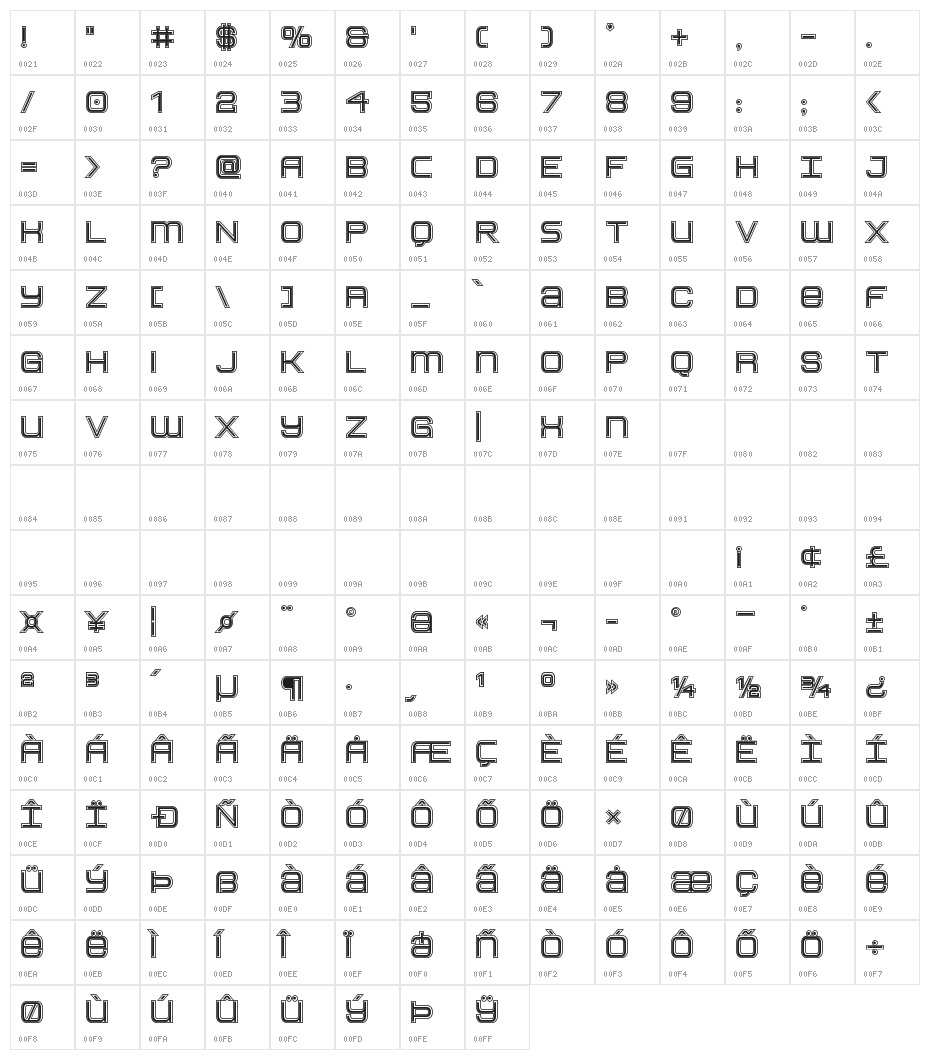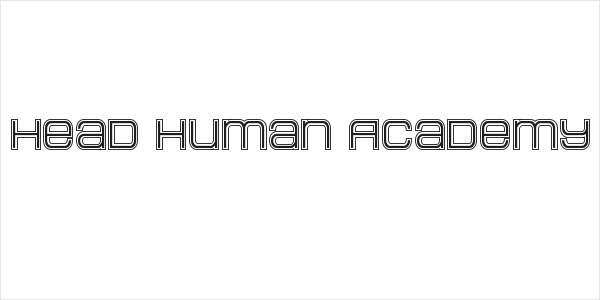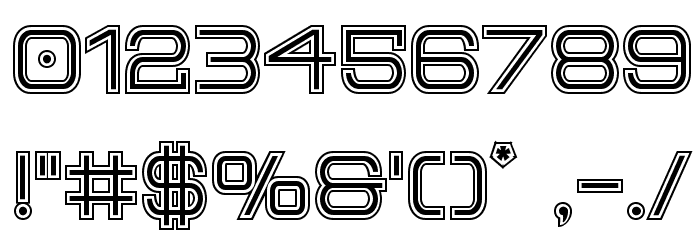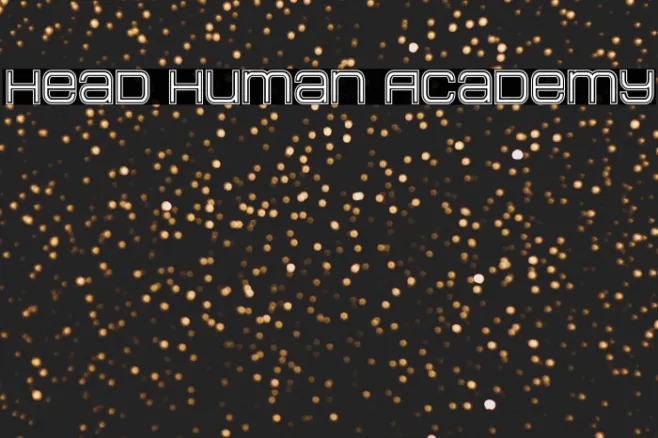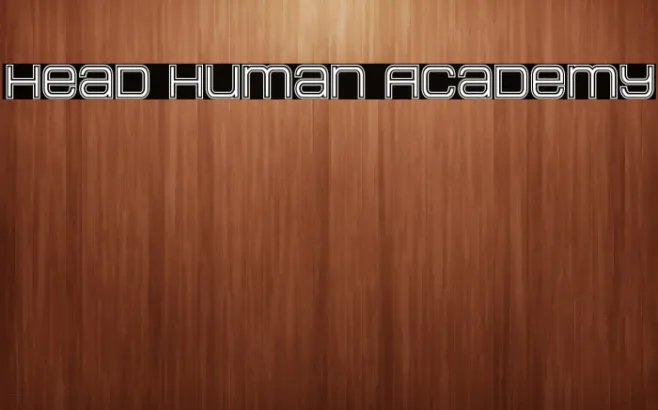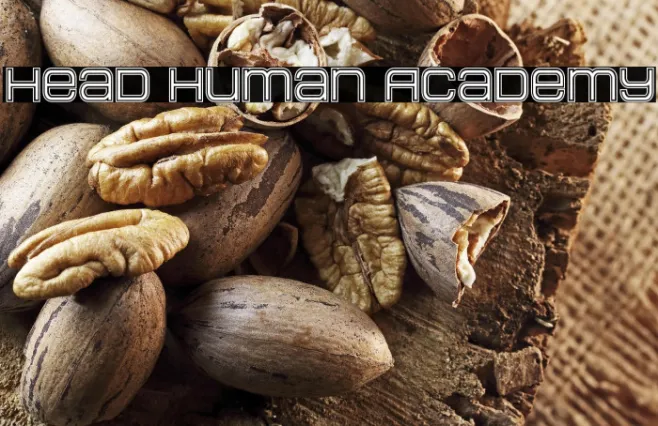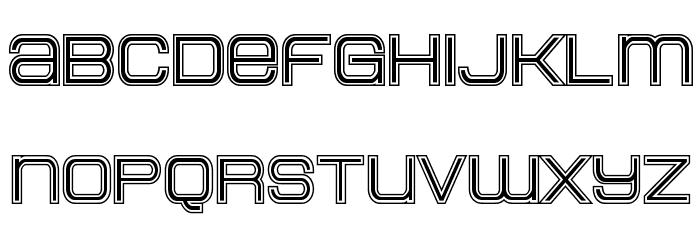
Head Human Academy Font
Head Human Academy Description
This font features a bold, geometric design with a double-line structure that creates a striking, futuristic appearance. The characters are constructed with clean, angular lines, giving them a technical and modern feel. The uppercase and lowercase letters maintain a consistent style, with a uniform height and width that enhances readability. The numbers and special characters follow the same design principles, ensuring a cohesive look across all elements. This font is ideal for projects that require a contemporary and eye-catching aesthetic.
| Proposed Projects | Ideal for technology branding, sci-fi movie posters, video game titles, and modern advertising campaigns. |